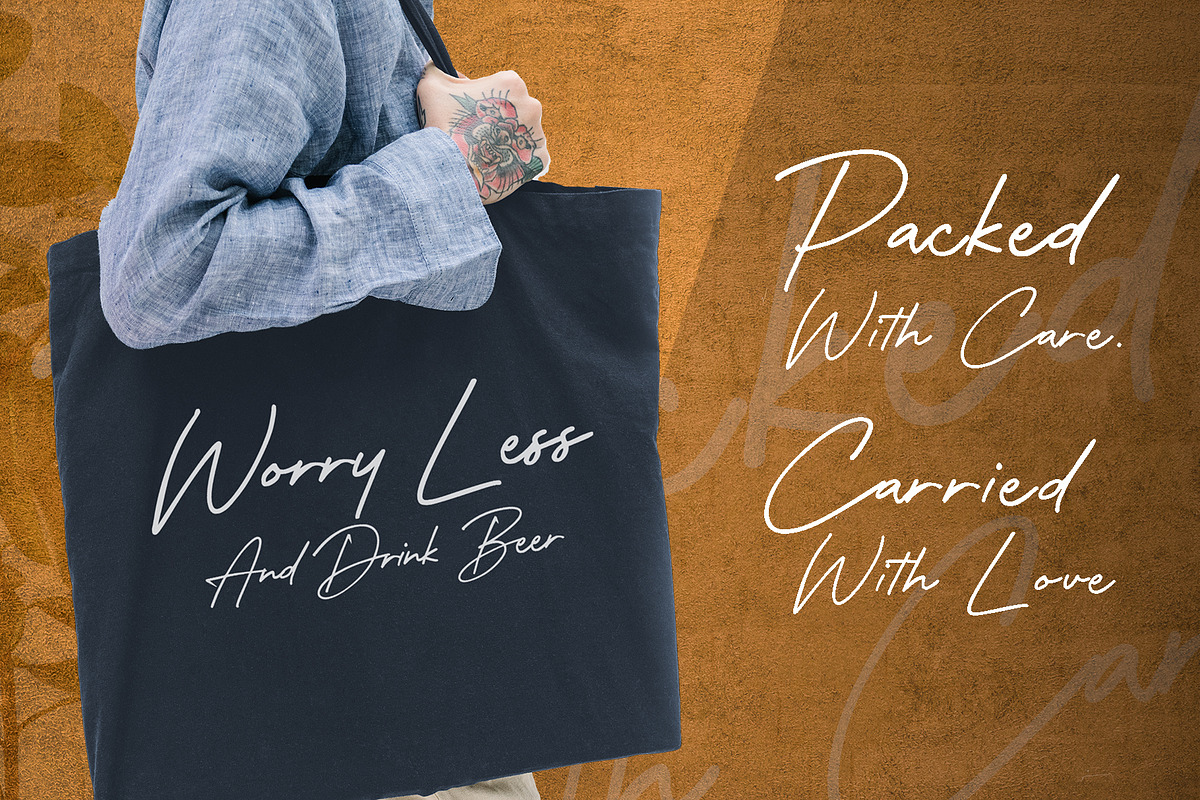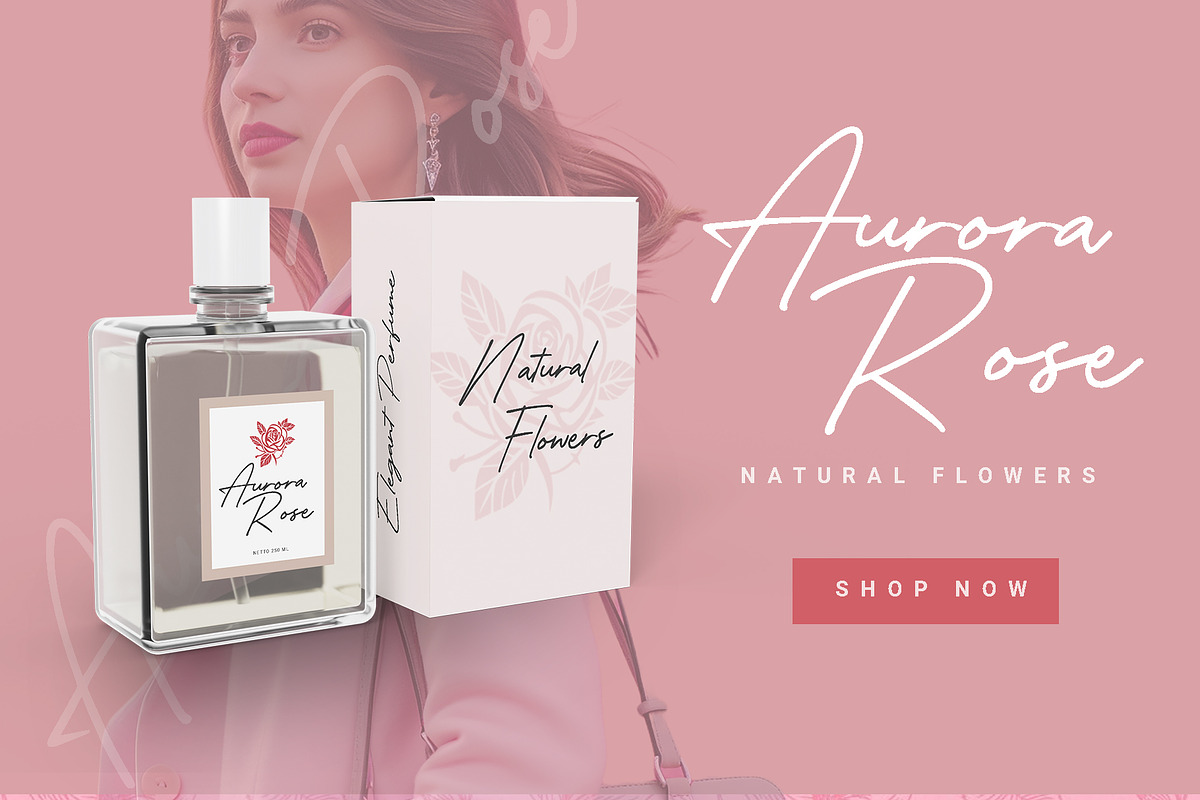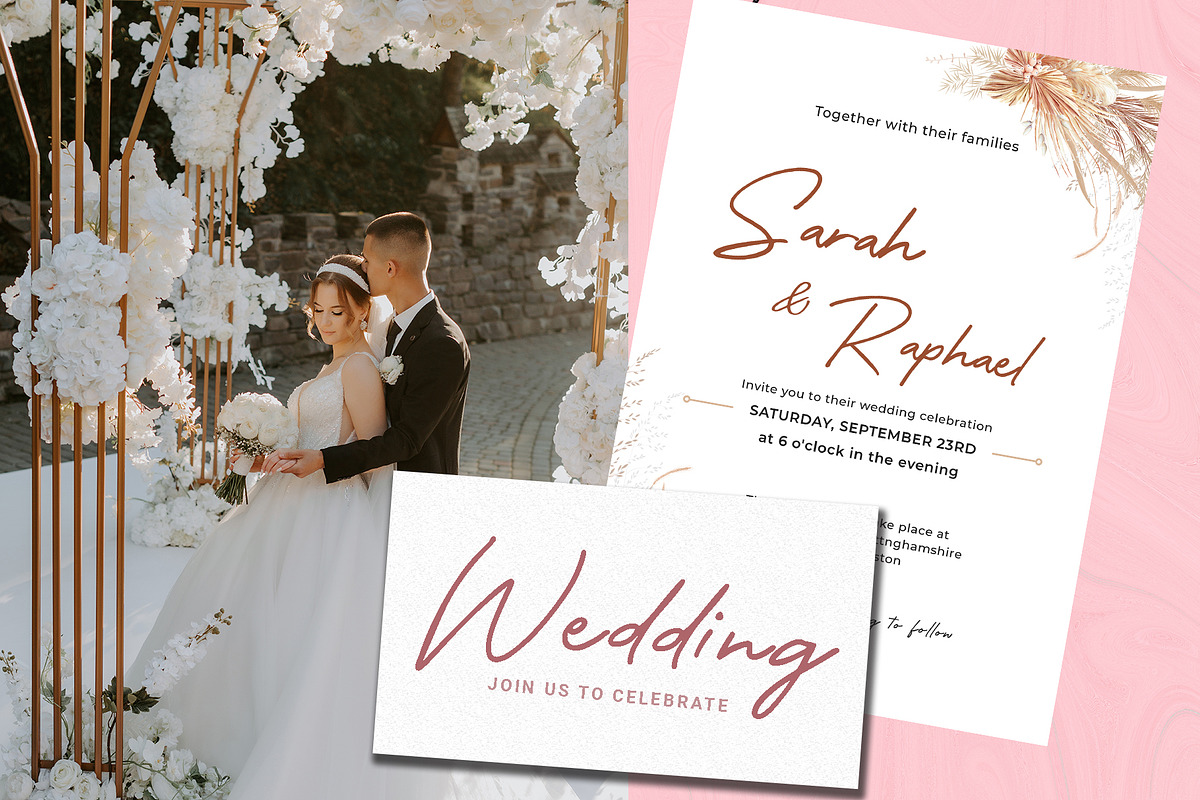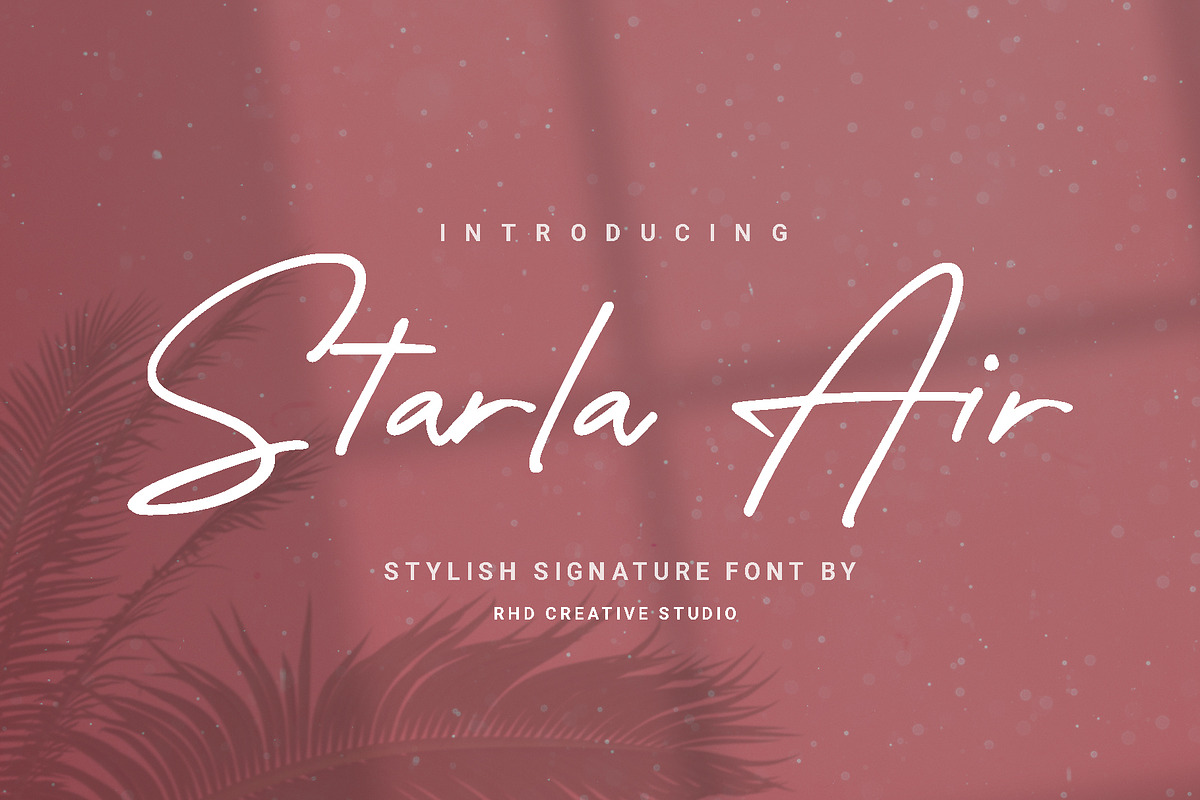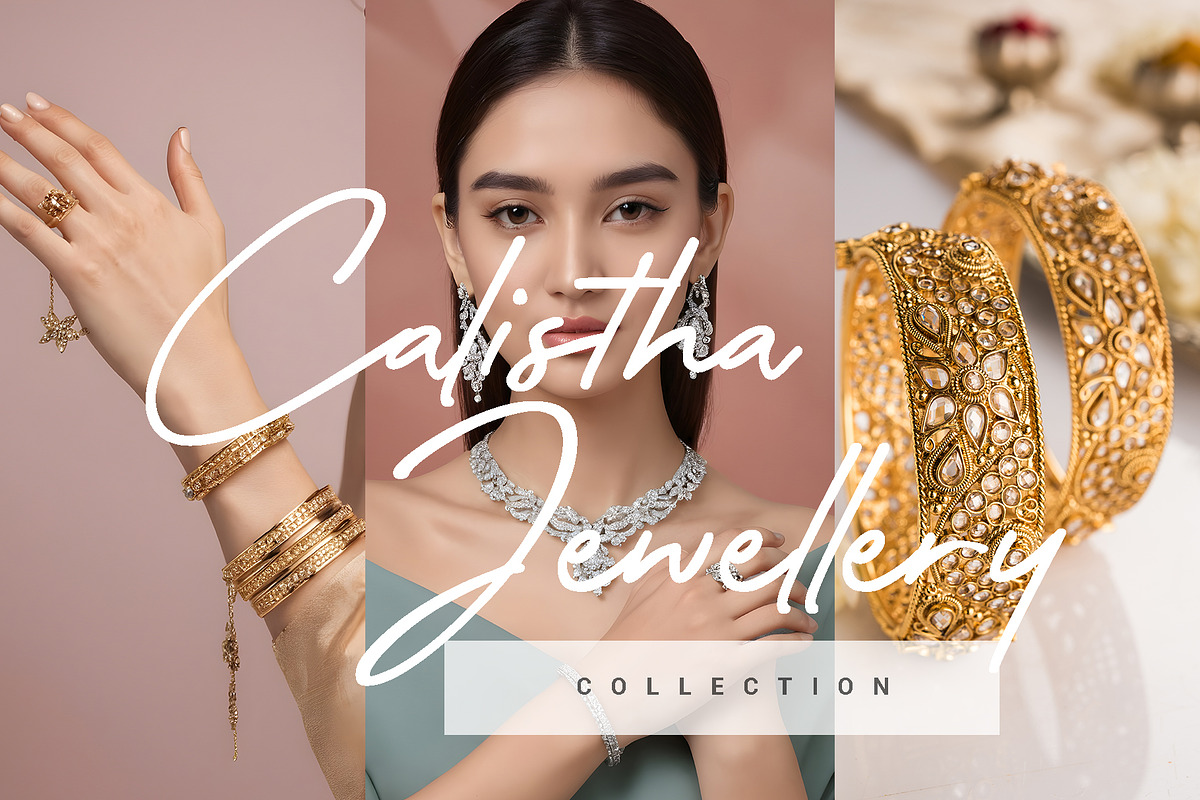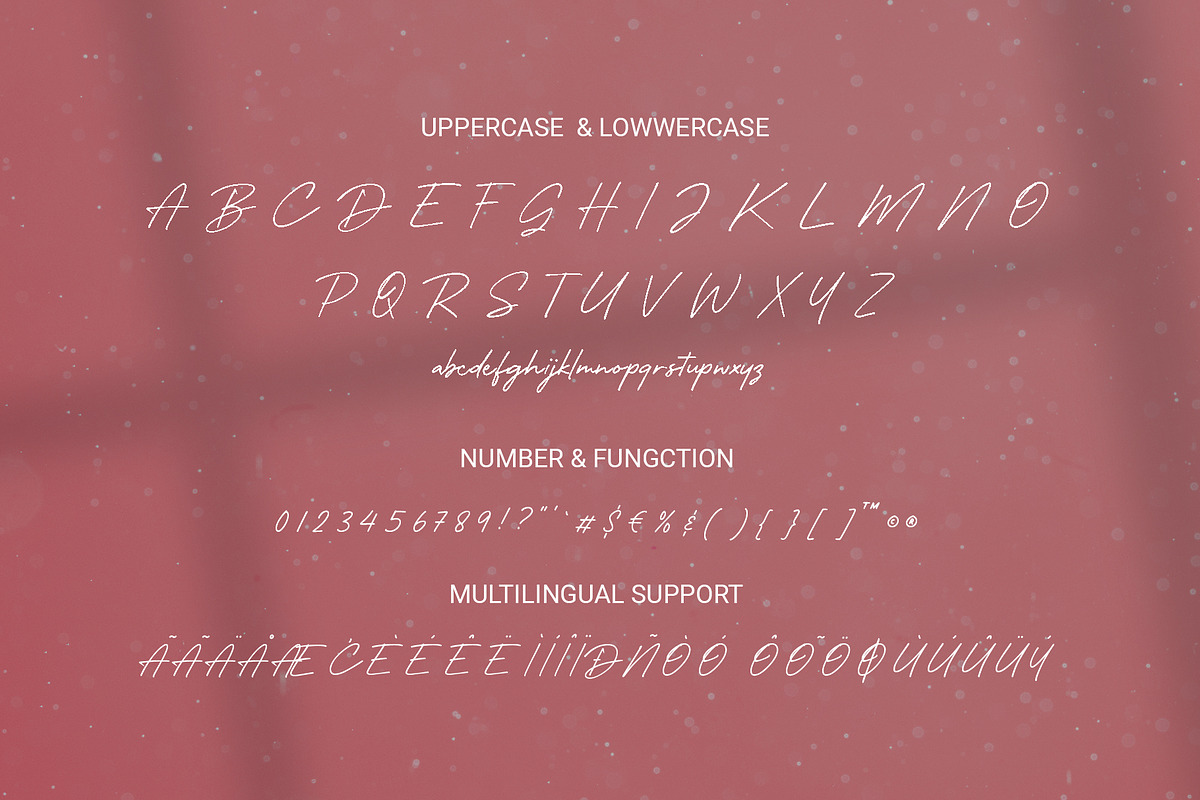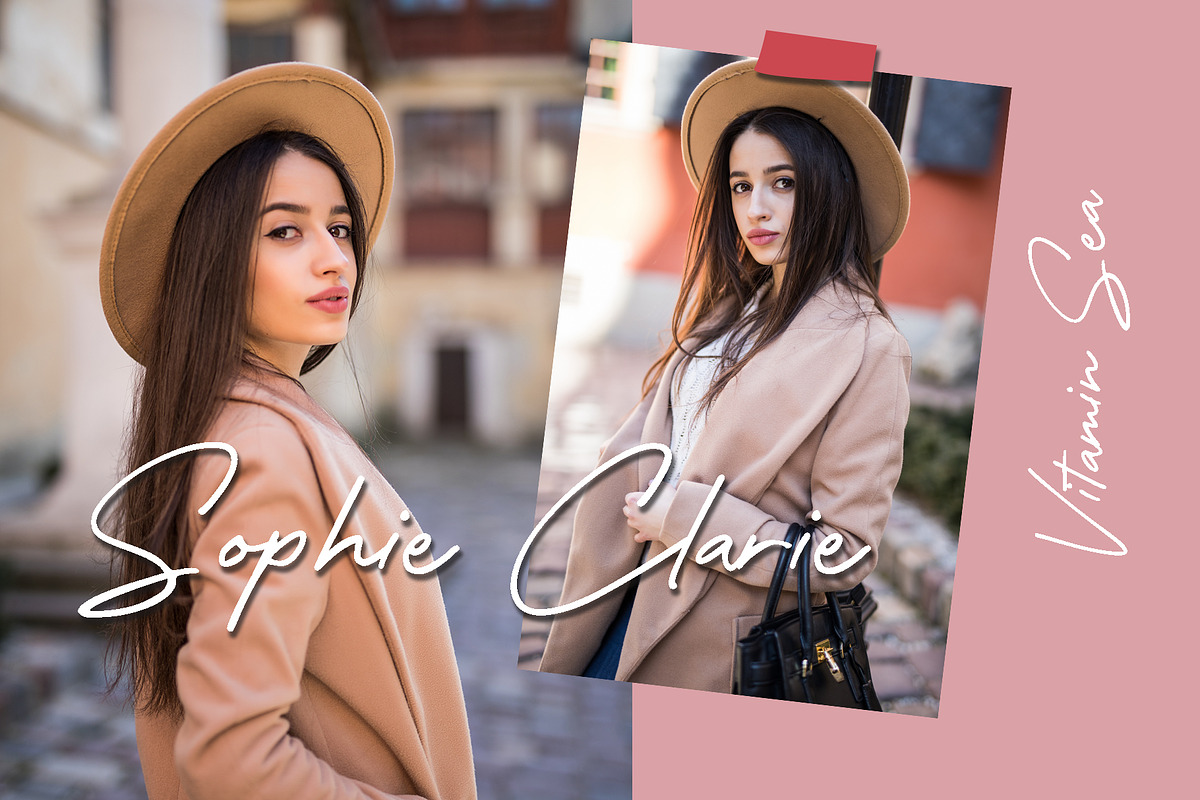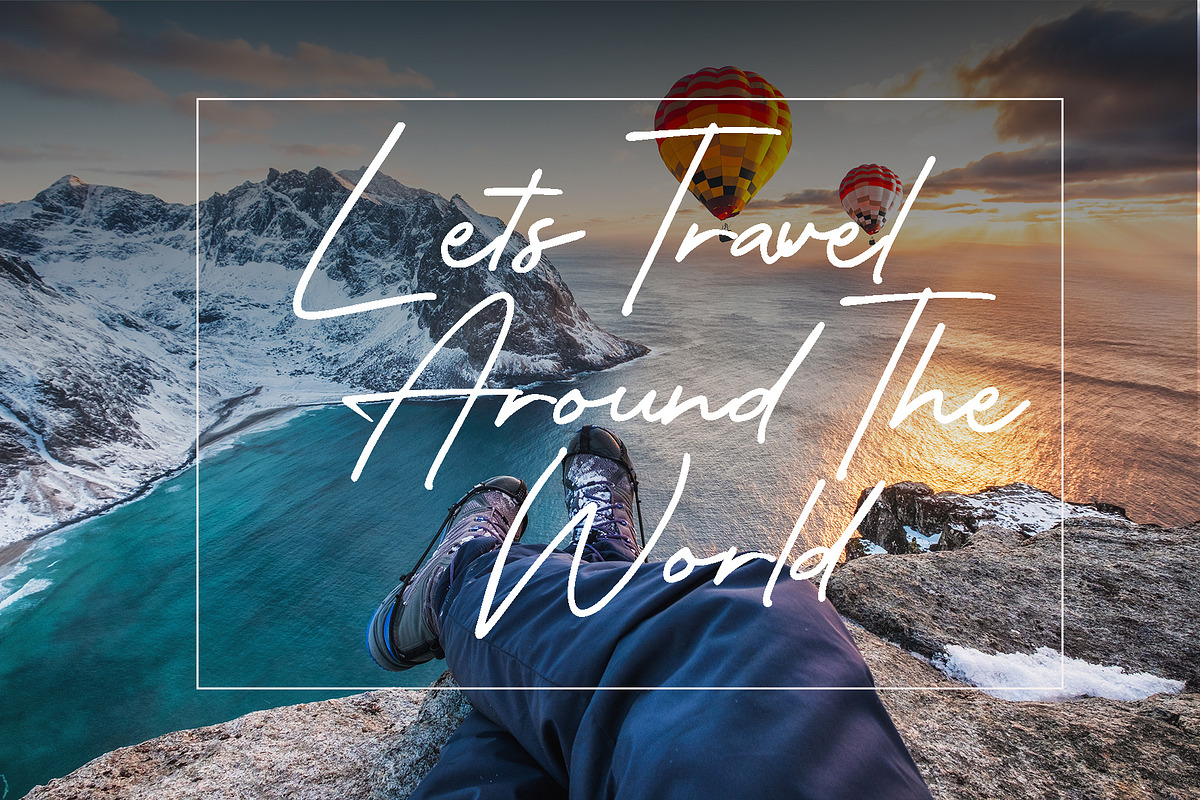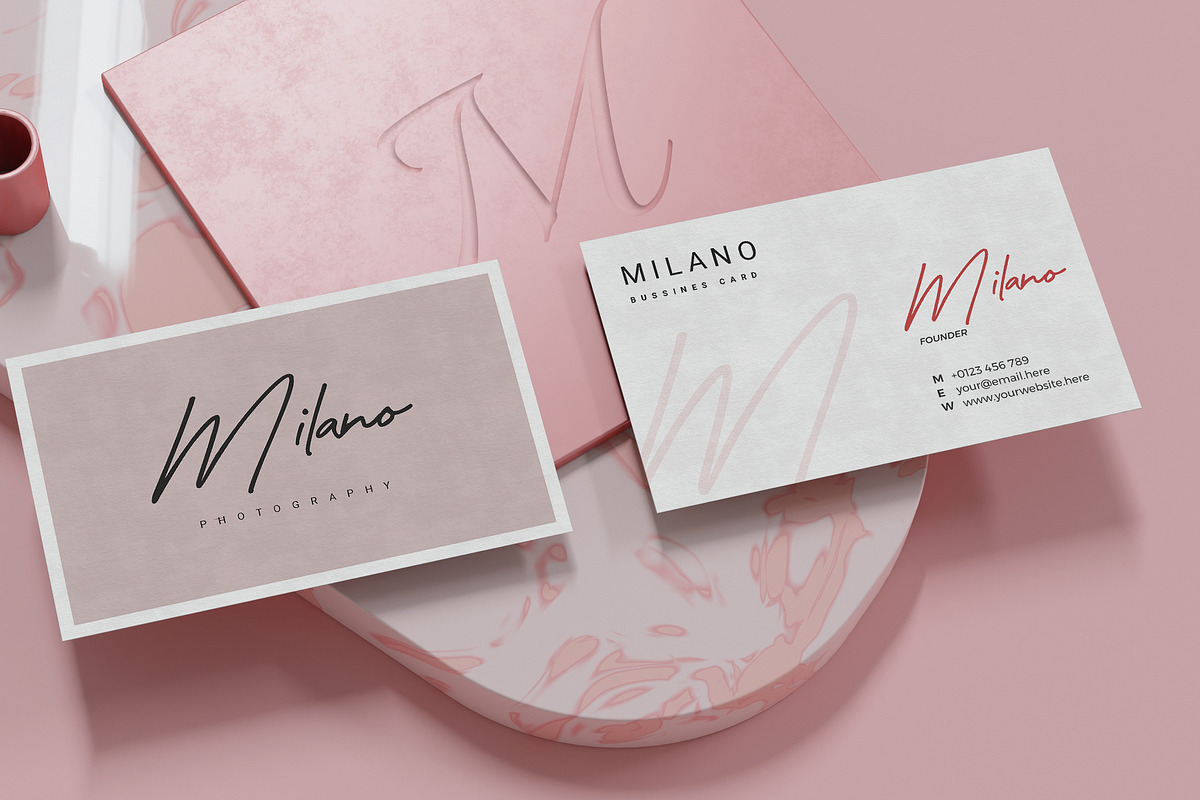
Starla Air - Stylish Signature Font
Hello everyone, I would like to introduce Starla Air - Stylish Signature Font.
Starla Air - Stylish Signature Font with Handmade character. Starla Air - Stylish Signature Font , Modern font to make your design project stand out! Starla Air is a perfectly choice for any creative endeavor, creating, modern, chic, lifestyle design such as logotype, title, cover, branding, invitations, wedding designs, display and magazine, social media posts, advertisements, printed quotes, product packaging, corporate brand, product designs, labels, photography, watermarks, special events and any other project with modern touch.